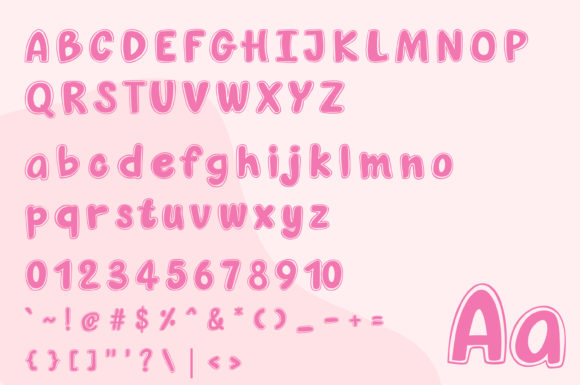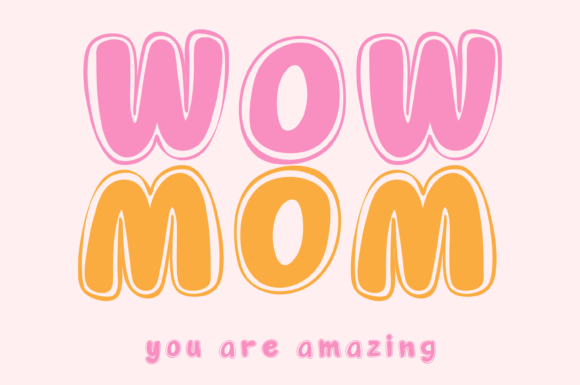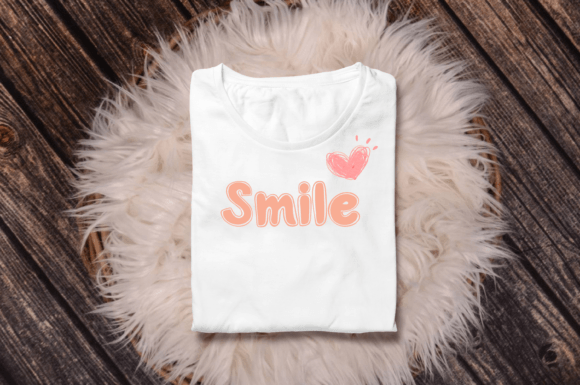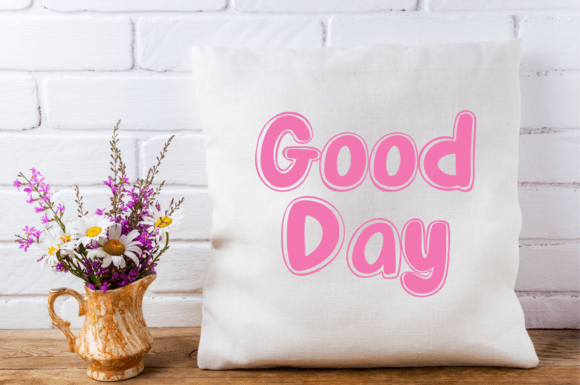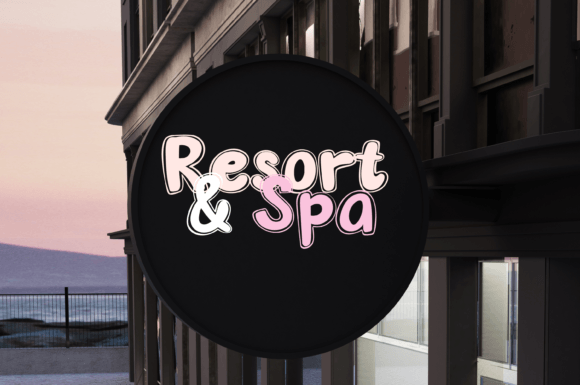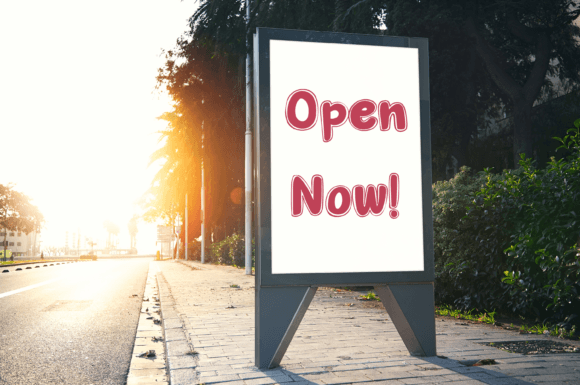
Introducing Cozy Daisy Font: The Whimsical and Clean Display Font for Your Creative Projects
Are you a designer, crafter, or DIY enthusiast looking for a font that can add a touch of whimsy and charm to your creative projects? Look no further than Cozy Daisy Font! This beautiful display font is perfect for anyone who wants to add a personal and playful touch to their designs, crafts, and DIY projects.
What is Cozy Daisy Font?
Cozy Daisy Font is a whimsical and clean display font that is perfect for a wide range of creative projects. Its unique and playful design makes it stand out from other fonts, and its versatility ensures that it can be used in a variety of contexts. Whether you’re designing a logo, creating a craft project, or working on a DIY endeavor, Cozy Daisy Font is the perfect choice.
Key Features of Cozy Daisy Font
• Whimsical and Clean Design: Cozy Daisy Font features a unique and playful design that is both whimsical and clean. Its smooth lines and rounded edges give it a friendly and approachable feel.
• Highly Versatile: Cozy Daisy Font can be used in a wide range of creative projects, from logos and branding to crafts and DIY projects.
• Easily Readable: Despite its playful design, Cozy Daisy Font is highly readable, making it perfect for use in titles, headings, and other display text.
• Perfect for Creative Projects: Cozy Daisy Font is designed specifically with creative projects in mind. Its unique design and versatility make it the perfect choice for designers, crafters, and DIY enthusiasts.
Uses for Cozy Daisy Font
Cozy Daisy Font is incredibly versatile, and can be used in a wide range of creative projects. Here are just a few ideas to get you started:
• Logo Design: Cozy Daisy Font is perfect for logo design, thanks to its unique and memorable design.
• Crafting and DIY Projects: Cozy Daisy Font is a great choice for crafting and DIY projects, such as handmade cards, gift tags, and other paper crafts.
• Branding and Packaging: Cozy Daisy Font can be used in branding and packaging design to add a touch of whimsy and charm.
• Signs and Displays: Cozy Daisy Font is perfect for use in signs and displays, thanks to its high readability and eye-catching design.
Why Choose Cozy Daisy Font?
• Unique Design: Cozy Daisy Font features a unique and playful design that will help your projects stand out.
• Highly Versatile: Cozy Daisy Font can be used in a wide range of creative projects, making it a great addition to your font library.
• Easily Readable: Cozy Daisy Font is highly readable, making it perfect for use in titles, headings, and other display text.
• Perfect for Creative Projects: Cozy Daisy Font is designed specifically with creative projects in mind, making it the perfect choice for designers, crafters, and DIY enthusiasts.
Cozy Daisy Style is a whimsical and clean display font. It can easily be matched to an incredibly large set of projects, so add it to your creative ideas and notice how it makes them stand out!